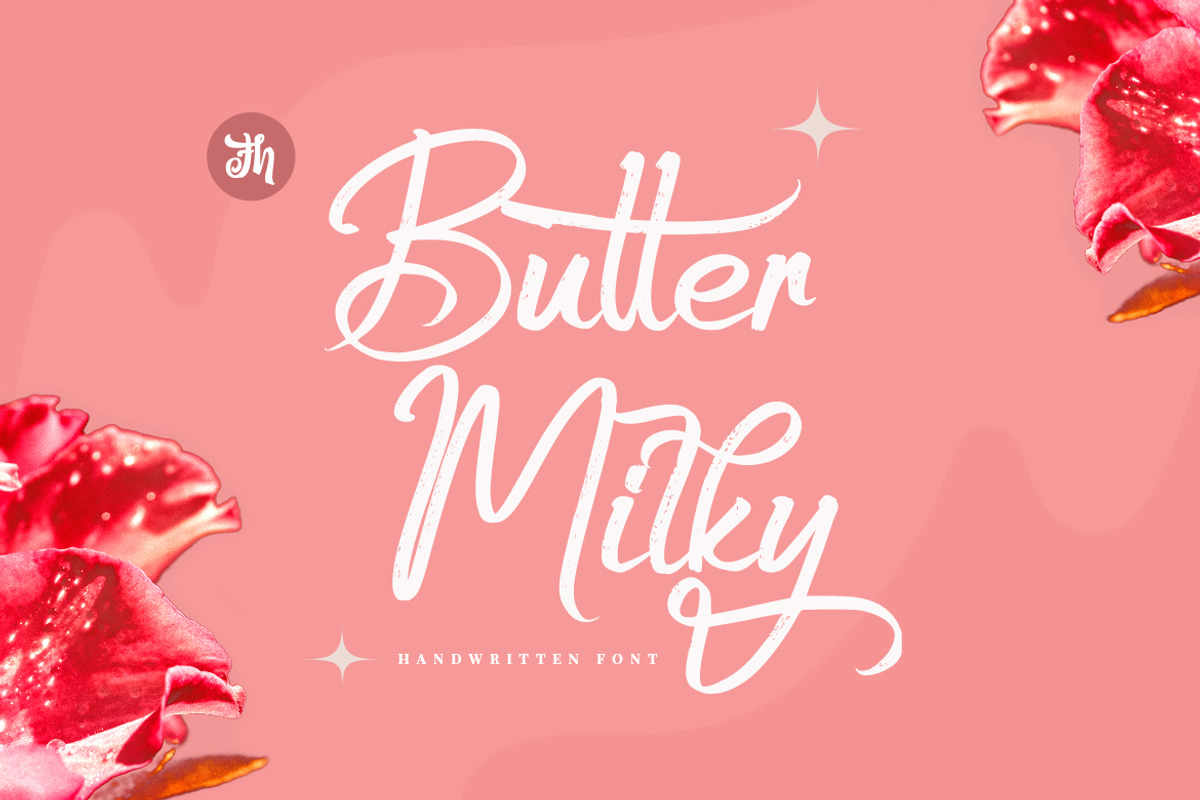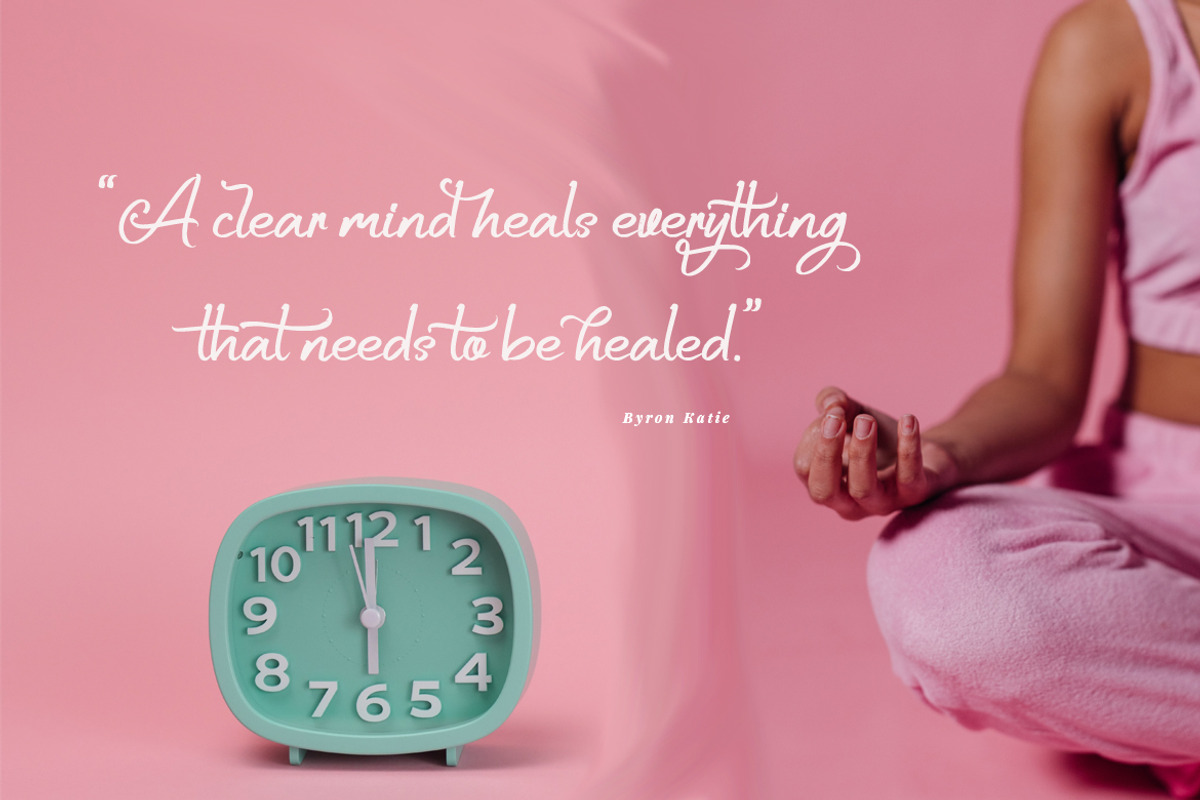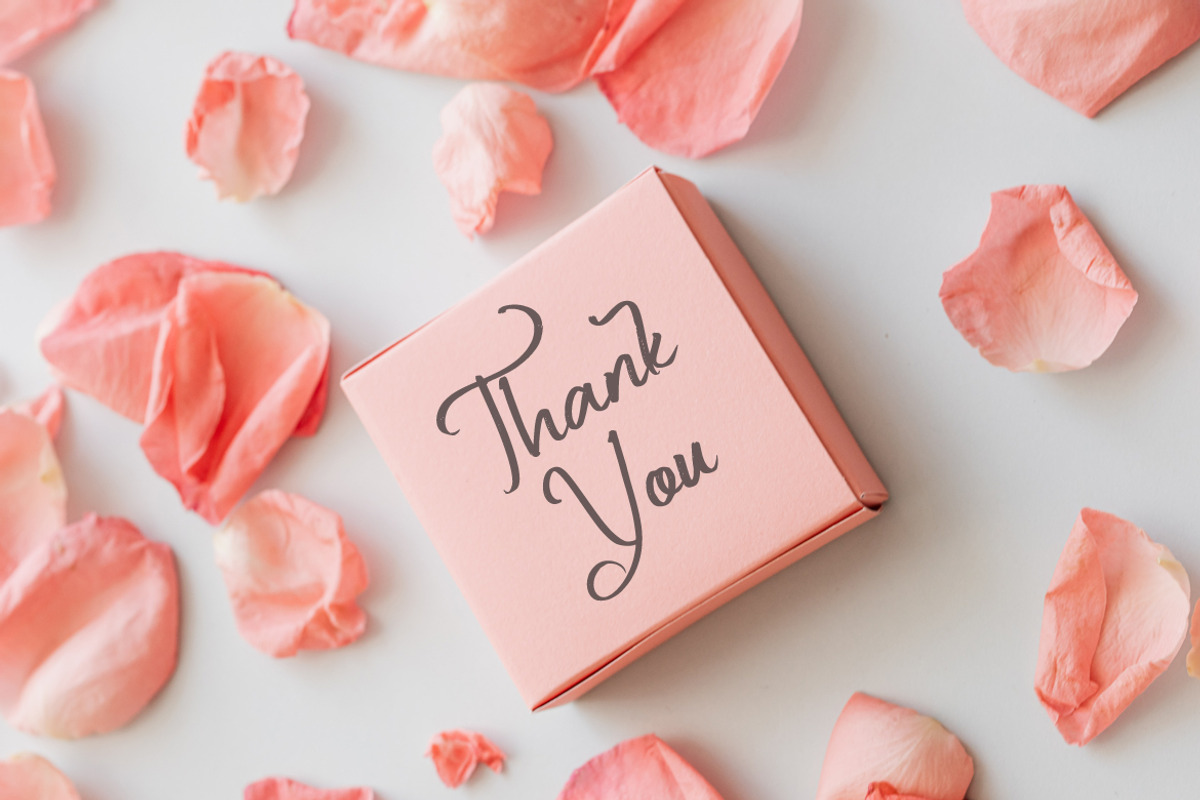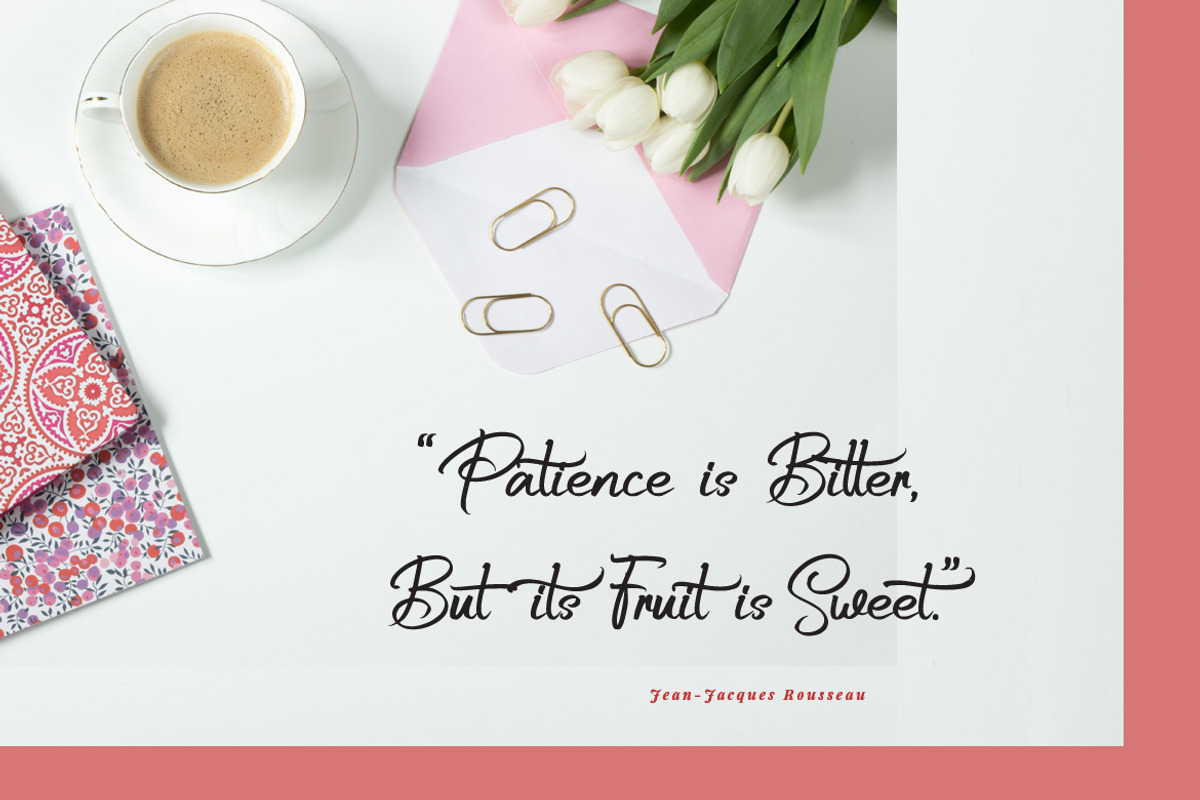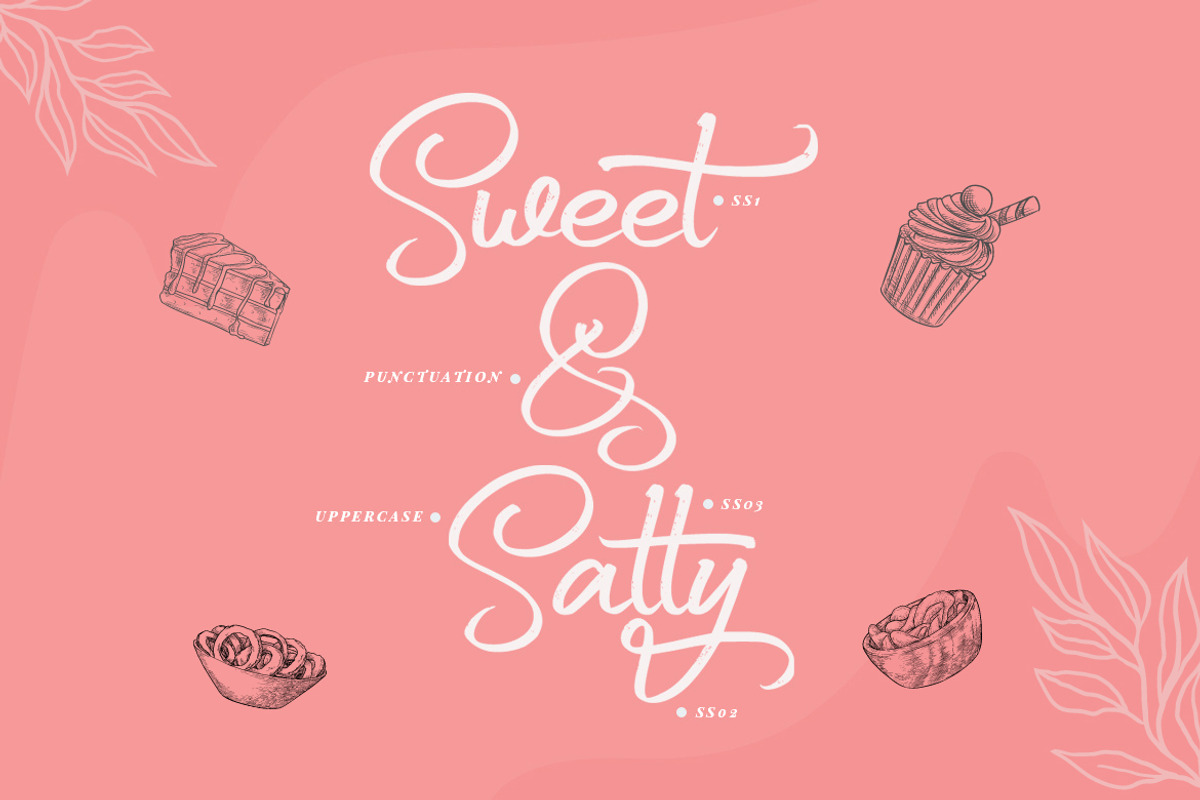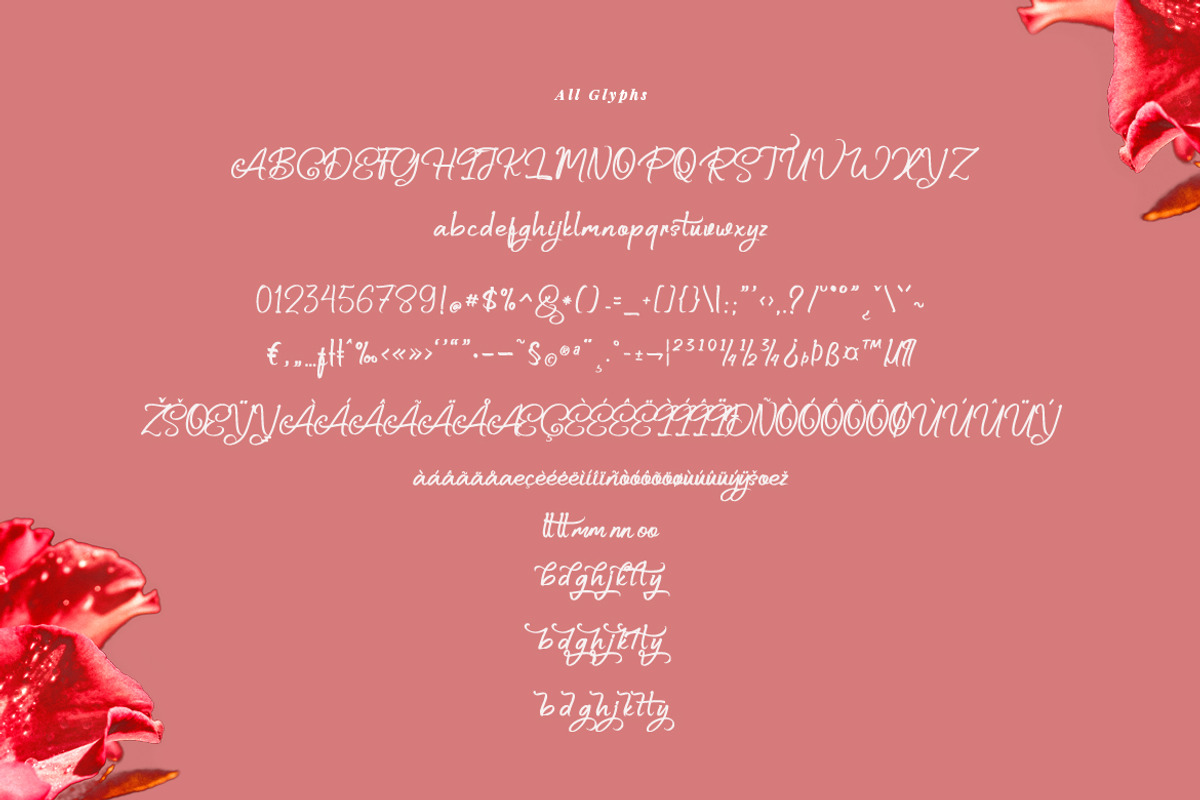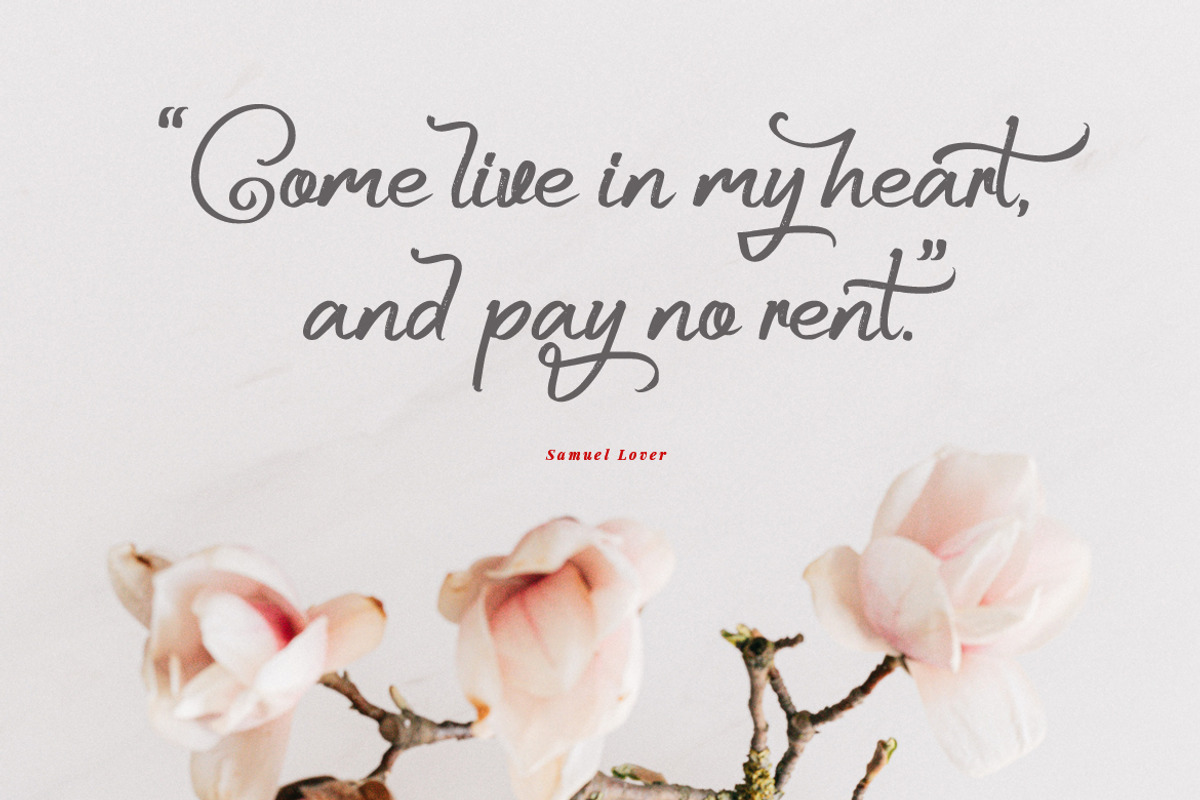
Butter Milky - Handwritten Font
Butter Milky is script font with handwritten vintage caligraphy style, with OpenType feature include of the font. Suitable for design, element design, event, logo, and awesome work, etc...
All Standard Character, Symbol, Multilanguage, Ligature, Stylistic Set, and Swashes.
Unique style fonts